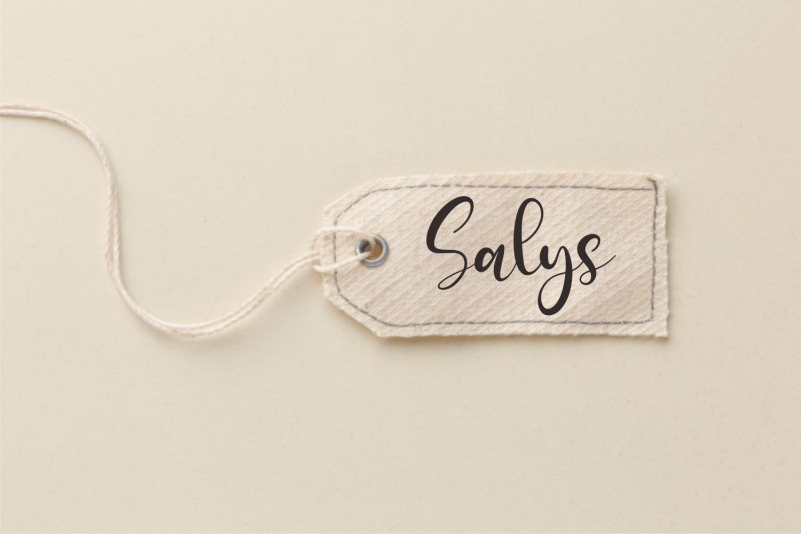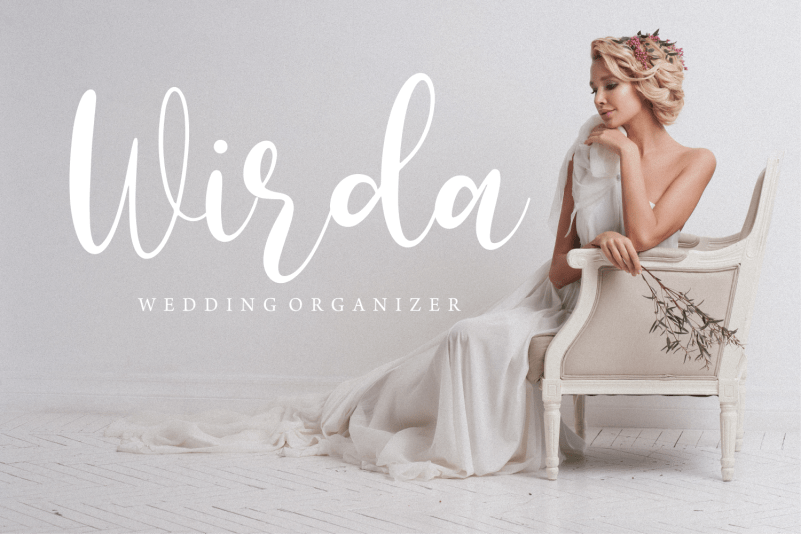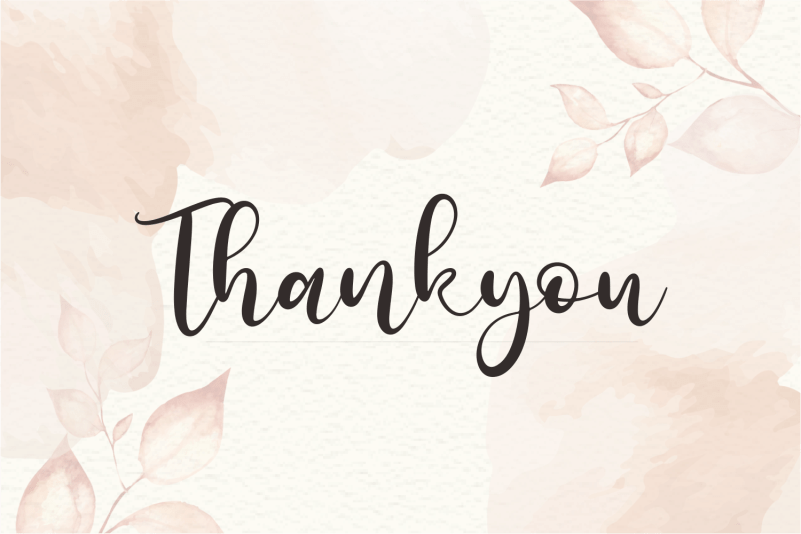
Tastfonia Font
Tastfonia Script Font is a chic script font, featuring a nice flow. This cool font has a wide spectrum of applications ranging from greeting cards to headlines and logos.